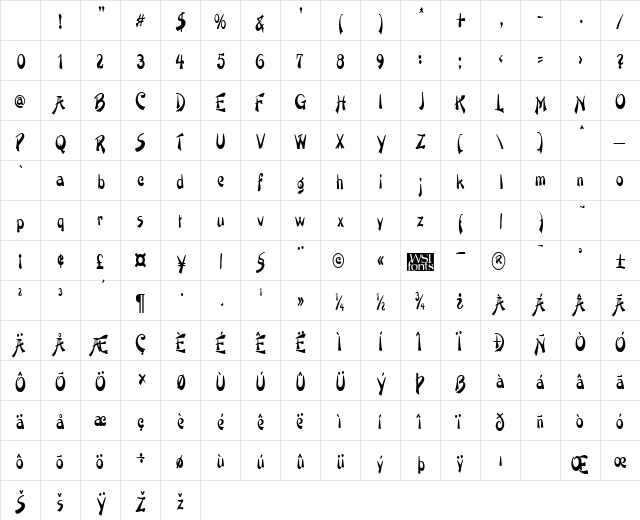
PainterNarrow Regular
PainterNarrow Family
PainterNarrow Regular
PainterNarrow Regular Character Map
Complete PainterNarrow Regular glyph index. Displaying only characters natively supported by PainterNarrow Regular font.
Design Context for PainterNarrow
PainterNarrow is a composed and adaptable typeface that performs quietly and consistently across a wide range of design contexts. Its narrow stance lets it pack a punch even in space-constrained designs.